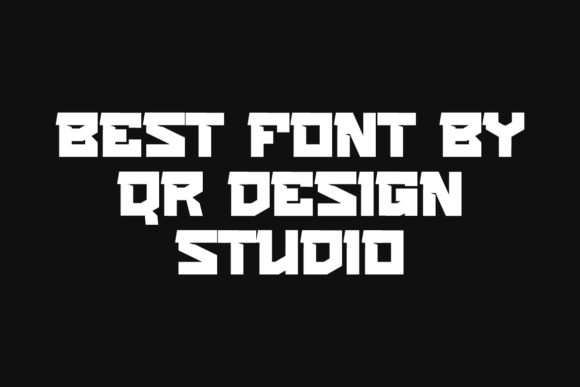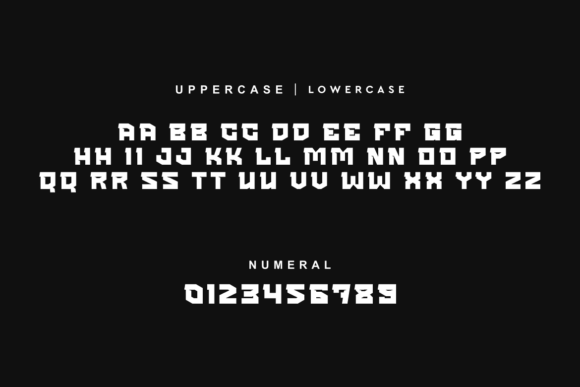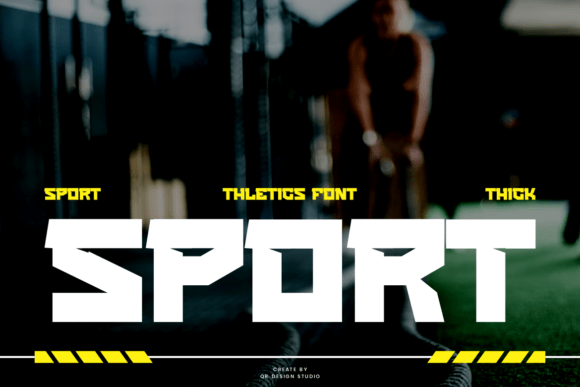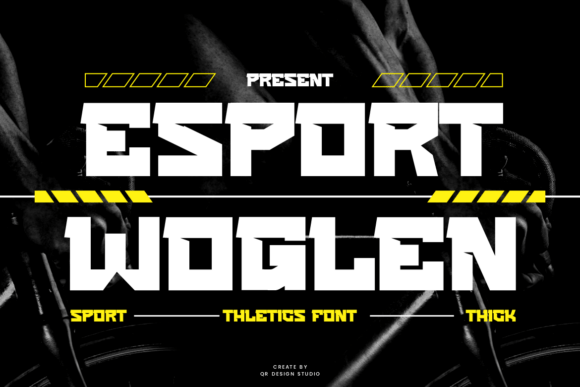
Introduction to Esport Woglen Font
Esport Woglen is a high-impact display font built for strength, energy, and attitude.
With its sharp angles, geometric cuts, and commanding presence, this typeface captures the spirit of competition and the aesthetics of athleticism The letterforms are solid and compact, designed to deliver instant readability and visual dominance across digital and physical platforms.
Key Features of Esport Woglen Font
Why Choose Esport Woglen Font?
Esport Woglen Font offers exceptional quality and versatility, making it a valuable addition to your design toolkit. Whether you’re creating for personal projects or commercial use, Esport Woglen Font delivers professional results.